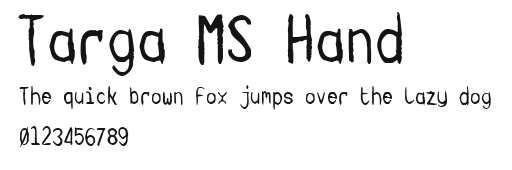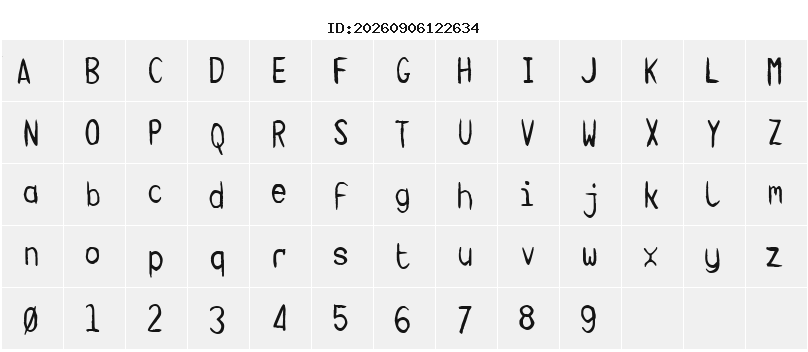
• Font Name: Targa MS Hand
• Full Font Name: Targa MS Hand
• Designer: Cosimo Lorenzo Pancini
• Manufacturer: studio kmzero
About Targa MS Hand.ttf
Targa MS Hand.ttf is a modern, elegant sans-serif font designed for ultimate readability and visual harmony. Perfect for branding, headlines, web design, and print materials.